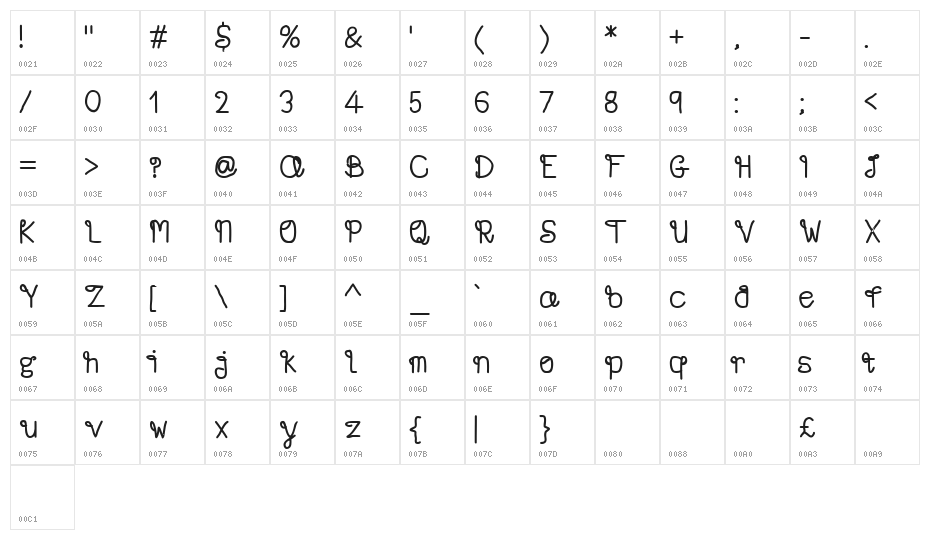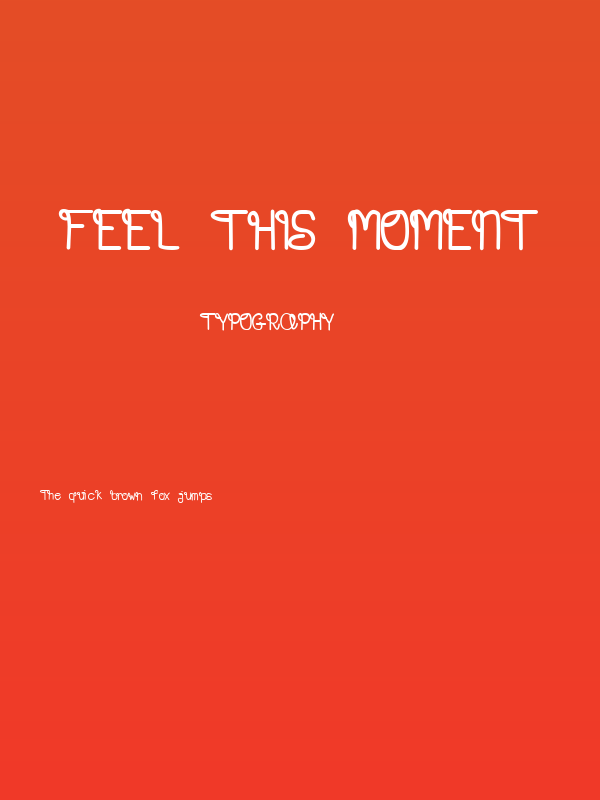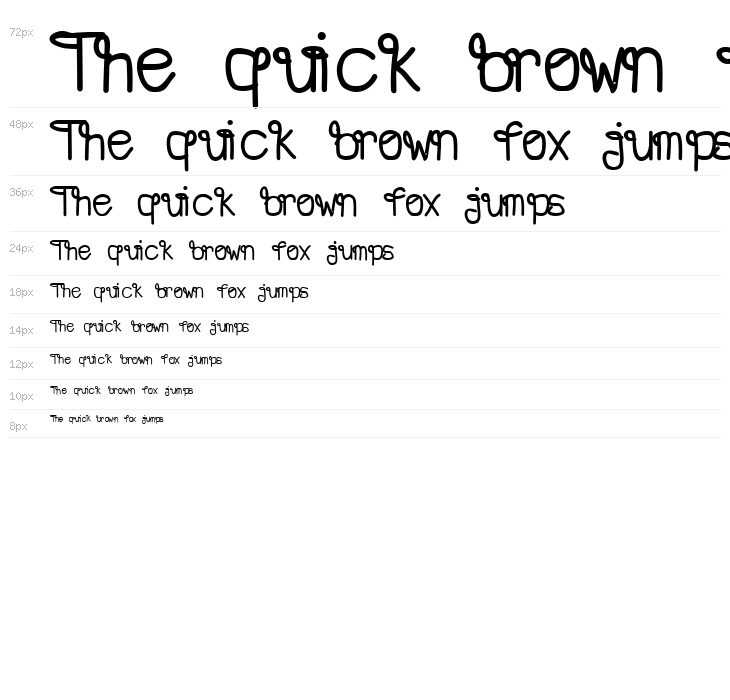
Feel This Moment Font
Feel This Moment Description
This playful and whimsical font features a unique, hand-drawn style with a casual and friendly appearance. The letters are interconnected with loops and curves, giving it a lively and dynamic feel. The uppercase and lowercase letters maintain a consistent flow, while the numbers and special characters complement the overall design. Its informal and approachable nature makes it suitable for creative projects that require a touch of personality and fun. The font's distinct style is characterized by its rounded edges and consistent stroke width, providing a harmonious and balanced look.
| Proposed Projects | Ideal for children's books, greeting cards, playful branding, and casual invitations. |